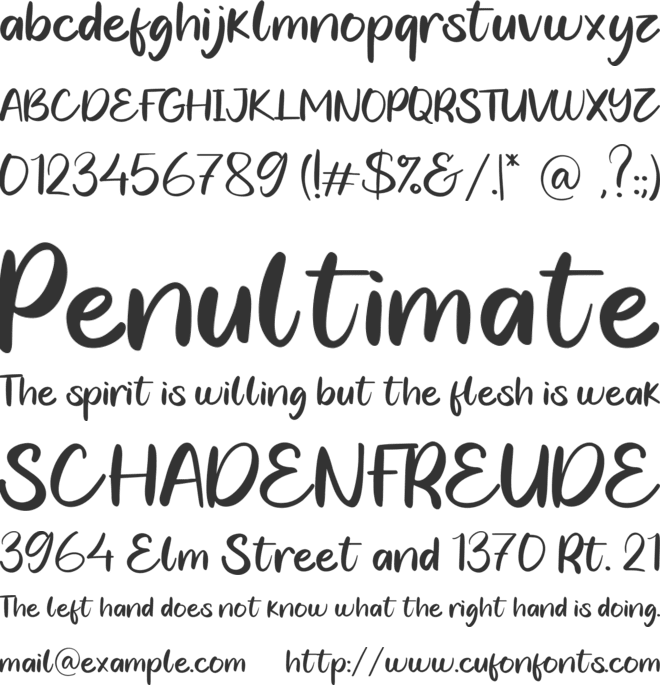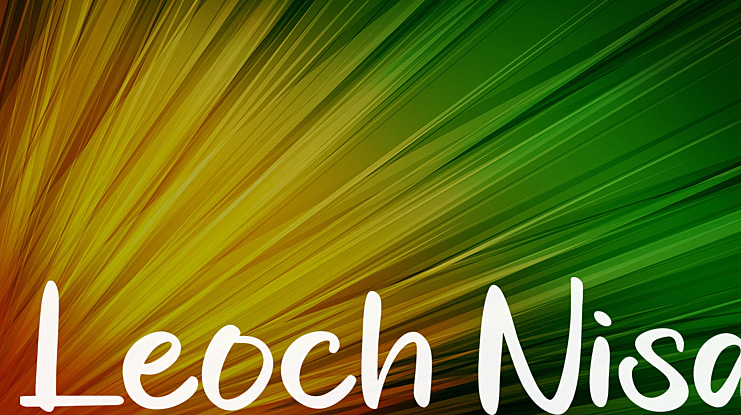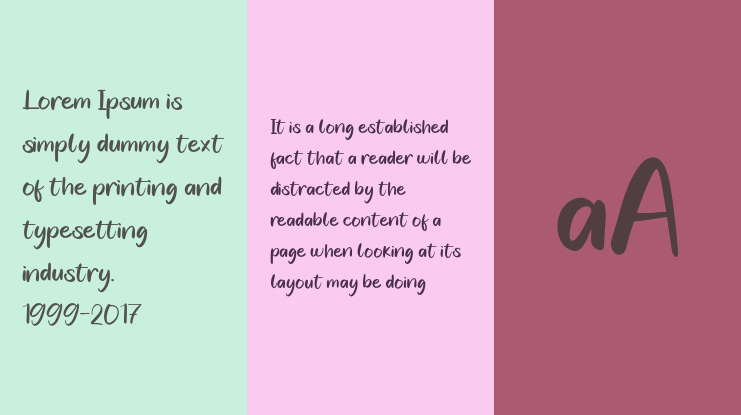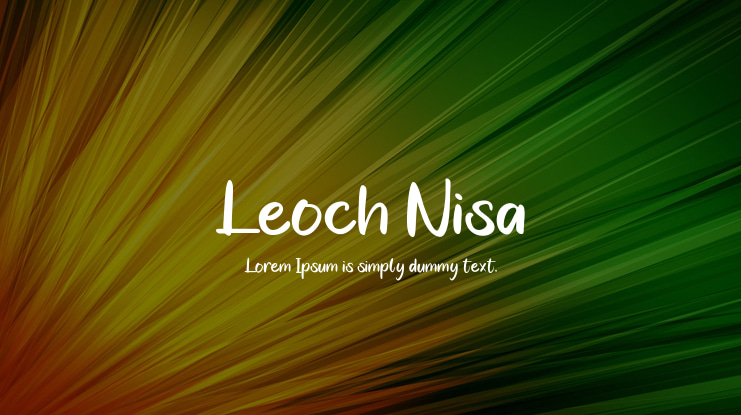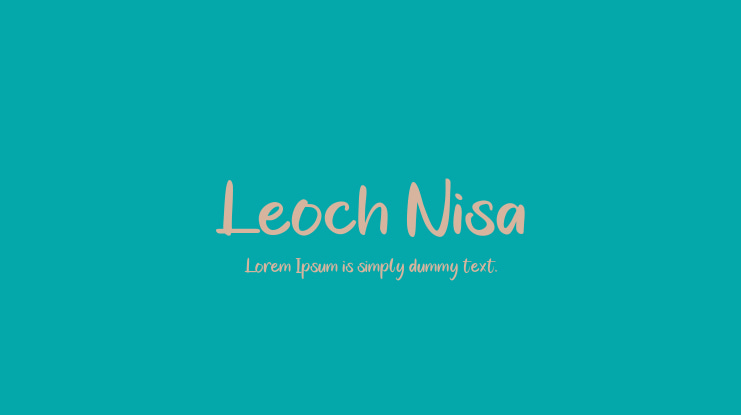
Leoch Nisa Font
Introducing Leoch Nisa is a Modern Handbrushed Font.
Leoch Nisa can be used for wide ranges of application, such as wedding design, branding project, logo, poster, name card, invitations, social media posts, and others.